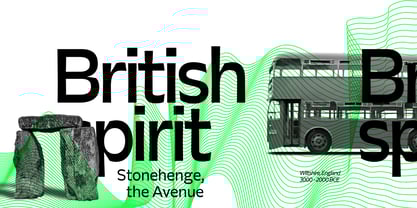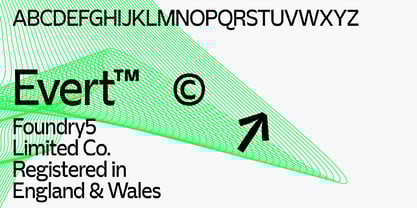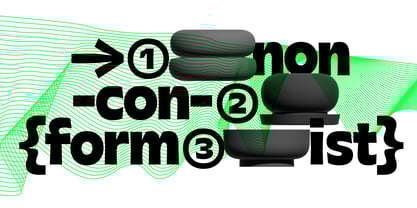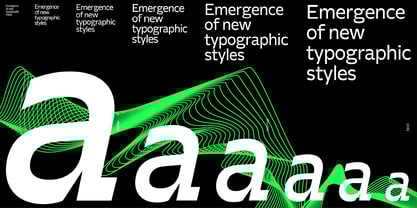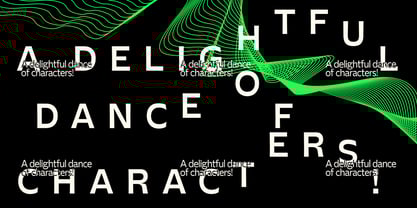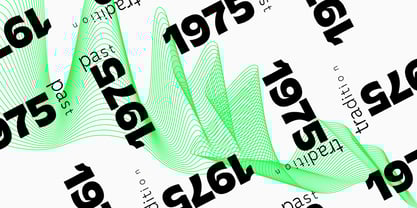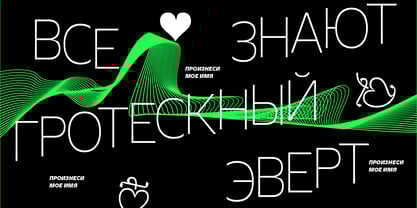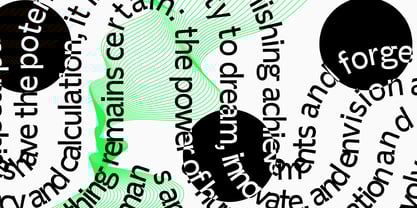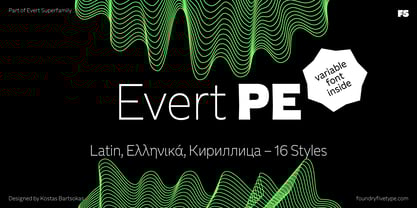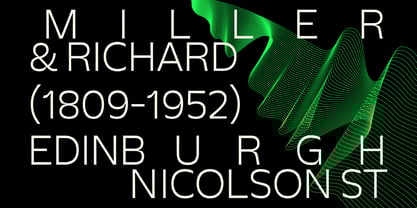
Evert PE
by Foundry5
The Evert PE Font Family was designed by Kostas Bartsokas and published by Foundry5. Evert PE contains 16 styles.
Welcome to the world of Evert, a typeface that breaks the mould while respectfully nodding to its classic roots. Like a themed rollercoaster it invites you on a ride over the plains of the early grotesques, into the tunnels of mechanical essence, up on the hills of the experimental, and over the district of contemporary modernity. This clearly isn’t your grandma’s typeface! Evert invites you to explore a whole new world of expressive design. It’s like a dance party where style and functionality bust a move in the most delightfully grotesque way. It’s genetic makeup holds the essence of Miller and Richard’s Grotesque No.1, mixed with hints of inspiration from Roger Excoffon’s Antique Olive and Evert Bloemsma’s FF Balance. The result is a unique blend of subtle rigidity and humanistic elegance, a quirky concoction of tradition and innovation, where every element adds its own spark to the typographic feast. Evert PE (Pan European) supports Latin, Cyrillic, and Greek and offers goodies such as localised forms, old-style numerals, tabular numerals, and discretionary ligatures. It comes in 48 styles and 3 optical sizes – text for your lengthy documents, display for wowing your crowds, and plain Evert for when you want the best of both worlds. So go ahead, unleash your inner typographic maverick and let Evert be your partner in crime on this epic journey.